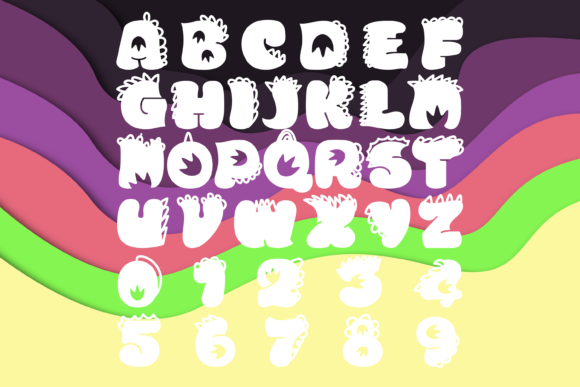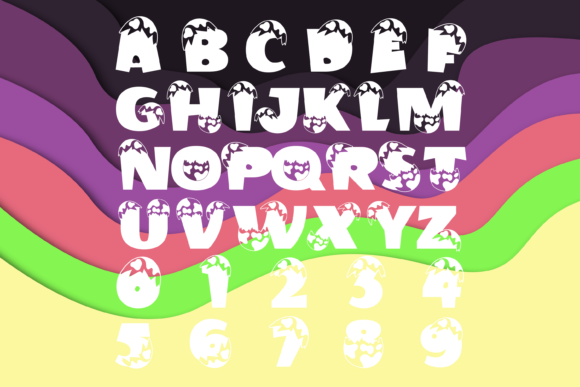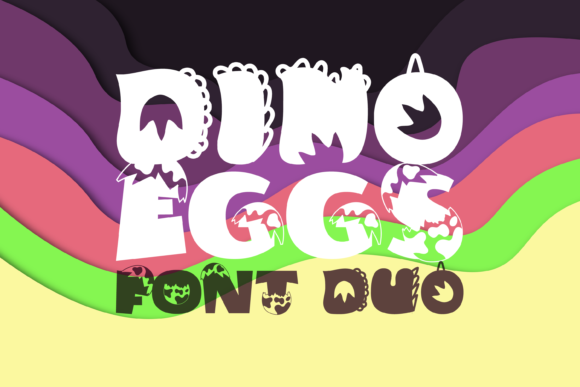
Dino Eggs Duo Font: The Ultimate Choice for Fun and Playful Designs
Dino Eggs Font Duo is an incredibly cool font that has been making waves in the design community. Whether you use it for cartoon-related designs, children’s games, or just any creation that requires a lovely touch, this font will be an amazing choice. In this article, we’ll dive into the world of Dino Eggs Duo Font and explore its features, benefits, and uses.
What is Dino Eggs Duo Font?
Dino Eggs Duo Font is a unique and playful font that features dinosaur egg-inspired characters. The font comes in two styles, which can be used together to create a fun and dynamic look. The font is designed to be highly legible and versatile, making it perfect for a wide range of design projects.
Features of Dino Eggs Duo Font
- Unique Character Design: The font features dinosaur egg-inspired characters that are sure to delight kids and adults alike.
- Two-Style Font: The font comes in two styles, which can be used together to create a fun and dynamic look.
- Highly Legible: The font is designed to be highly legible, making it perfect for use in children’s books, games, and other designs.
- Versatile: The font can be used for a wide range of design projects, from cartoon-related designs to crafts and more.
Benefits of Using Dino Eggs Duo Font
So, why should you choose Dino Eggs Duo Font for your next design project? Here are just a few benefits of using this amazing font:
- Adds a Playful Touch: The font adds a playful touch to any design, making it perfect for children’s products and projects.
- Stand Out from the Crowd: The unique character design of the font will help your design stand out from the crowd.
- Easy to Read: The font is highly legible, making it easy for kids and adults to read.
- Customizable: The font can be customized to fit your design needs, making it perfect for a wide range of projects.
Uses of Dino Eggs Duo Font
Dino Eggs Duo Font is a versatile font that can be used for a wide range of design projects. Here are just a few ideas to get you started:
- Children’s Books: The font is perfect for use in children’s books, adding a playful touch to your story.
- Cartoon-Related Designs: The font is a great choice for cartoon-related designs, such as character designs and animations.
- Children’s Games: The font can be used to create fun and engaging children’s games.
- Crafts: The font can be used for a wide range of crafts, from scrapbooking to card making.
Tips for Using Dino Eggs Duo Font
Here are a few tips for using Dino Eggs Duo Font in your design projects:
- Use it with Bright Colors: The font looks great when paired with bright, bold colors.
- Experiment with Different Sizes: The font can be used at a variety of sizes, from small to large.
- Pair it with Other Fonts: The font can be paired with other fonts to create a unique and dynamic look.